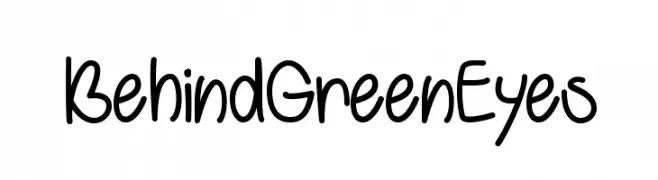
A playful, handwritten font with smooth, rounded edges and a casual style.
A playful handwritten font with a casual and friendly vibe.
A playful, handwritten font with rounded, bold characters.
A playful, handwritten font with smooth, rounded edges and a casual, dynamic style.
A playful, handwritten font with rounded edges and consistent stroke width.
A playful, rounded font with a friendly and approachable style.
A playful, handwritten font with smooth, rounded edges and a friendly appearance.